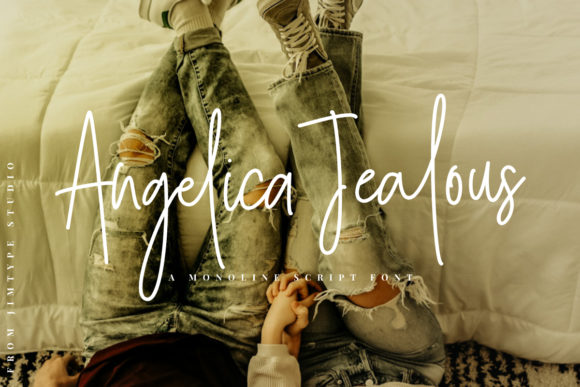
Introducing Angelica Jealous Font: Elevate Your Designs with Elegance
In the realm of typography, fonts play a crucial role in conveying the tone and aesthetic of a design. For those seeking a touch of sophistication and elegance, the Angelica Jealous Font stands out as an exceptional choice. This stylish and thin lettered handwritten font is perfect for a variety of design projects, including wedding invitations, thank you cards, quotes, greeting cards, logos, business cards, and more.
The Beauty of Angelica Jealous Font
Angelica Jealous Font is a masterpiece of modern typography, boasting a unique and captivating style that instantly elevates any design. Its thin, handwritten letters exude a sense of refinement and luxury, making it an ideal choice for designs that require a personalized touch. The font’s elegant appearance is sure to leave a lasting impression on your audience, setting your designs apart from the rest.
Key Features of Angelica Jealous Font
- Stylish and Thin Lettered: The font’s sleek and slender letters create a sophisticated look that’s perfect for high-end designs.
- Handwritten: The font’s handwritten nature adds a touch of warmth and personality to your designs.
- Versatile: Suitable for a wide range of design projects, including wedding invitations, thank you cards, quotes, greeting cards, logos, business cards, and more.
Use Cases for Angelica Jealous Font
Angelica Jealous Font is an incredibly versatile font that can be used in various design projects. Here are some of the most popular use cases:
Wedding Invitations
Make your wedding invitations truly special with Angelica Jealous Font. The font’s elegant and refined appearance creates a beautiful first impression, setting the tone for your special day.
Thank You Cards
Express your gratitude in style with Angelica Jealous Font. The font’s handwritten nature adds a touch of warmth and sincerity to your thank you cards.
Quotes and Greeting Cards
Angelica Jealous Font is perfect for creating inspirational quotes and greeting cards. The font’s elegant appearance adds a touch of sophistication to your messages.
Logos and Business Cards
Take your branding to the next level with Angelica Jealous Font. The font’s unique and captivating style creates a lasting impression on your audience, making it perfect for logos and business cards.
Why Choose Angelica Jealous Font?
With so many fonts available, why choose Angelica Jealous Font? Here are a few reasons why this font stands out:
Unique and Captivating Style
Angelica Jealous Font boasts a unique and captivating style that’s sure to elevate your designs.
Versatility
Angelica Jealous Font is suitable for a wide range of design projects, making it a valuable addition to your font library.
In conclusion, Angelica Jealous Font is an exceptional choice for designers seeking to add a touch of elegance and sophistication to their designs. With its unique and captivating style, ease of use, and versatility, this font is sure to become a staple in your font library.